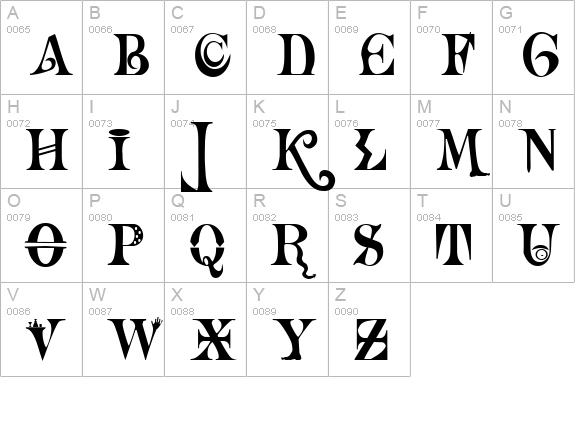
Necromantic Font Details
The Necromantic font is a hauntingly beautiful display typeface that perfectly captures the dark and mysterious essence of the supernatural. Its intricate and ornate letterforms exude an eerie charm, making it ideal for projects that require a touch of gothic elegance. This unique font is freely available to download at FontsMarket.com, allowing designers and creatives to easily access its macabre allure for their projects. Whether you're working on a spooky Halloween invitation, a gothic-themed poster, or a chilling book cover, the Necromantic font is sure to add a touch of dark magic to your designs. Embrace the supernatural and bring your creations to life with this free and captivating typeface.